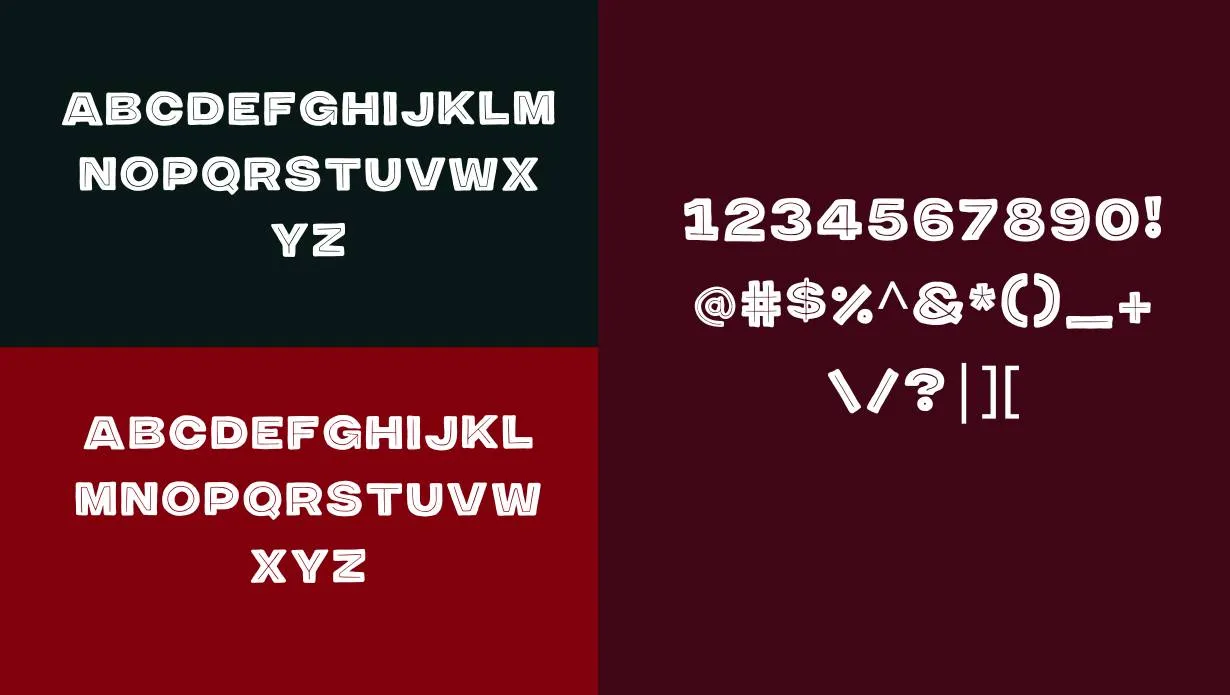
Tiki Font stands out as a vibrant and dynamic typeface that breathes life into any design. Its lively curves and distinctive characters infuse a sense of playfulness, making it an ideal choice for creative projects like party invitations, event banners, or lively social media posts.